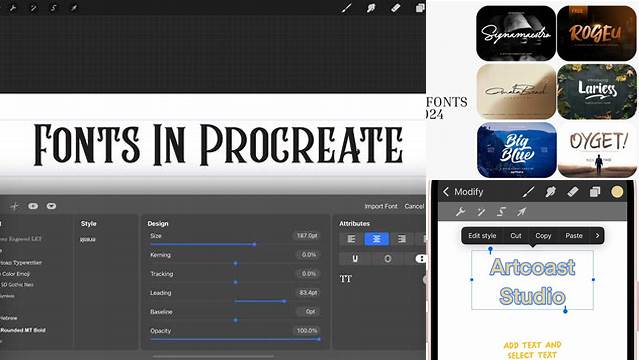
Download Procreate Fonts Free: The Ultimate Guide
Are you looking to download fonts for Procreate for free? You've come to the right place! Procreate, the amazing digital art app for iPad, is super popular among artists, illustrators, and designers. One of the coolest things about Procreate is how customizable it is, and fonts play a huge role in that. Choosing the right font can totally transform your artwork, giving it a unique vibe and making your message pop. But let's be real, finding high-quality fonts for free can sometimes feel like searching for a needle in a haystack. Don't worry, guys! This article will show you where to find awesome fonts without spending a dime and how to easily install them in Procreate. We'll also give you some tips on using fonts effectively in your projects to make your artwork stand out.
Why Fonts Matter in Procreate
Before diving into the where and how, let's talk about why fonts are so important in Procreate. Fonts are more than just letters; they're a way to express your style and enhance the overall feel of your artwork. Imagine creating a stunning poster but using a font that doesn't match the theme – it just wouldn't work, right? The right font can make your text readable, attractive, and engaging. Whether you're working on illustrations, comics, logos, or typography-based art, fonts help communicate your message effectively and add that extra oomph to your designs. Different fonts evoke different emotions and associations. A bold, sans-serif font might convey modernity and strength, while a delicate, script font can bring a touch of elegance and sophistication. Think about it: the font you choose for a children's book will be very different from the one you use for a corporate brochure. So, understanding the impact of fonts and carefully selecting the ones that align with your artistic vision is essential for creating compelling visuals in Procreate. Plus, having a diverse collection of fonts at your fingertips opens up a world of creative possibilities and allows you to experiment with different styles and effects. With the right fonts, you can take your Procreate projects to the next level and create truly eye-catching designs.
Finding Free Fonts for Procreate
Tips for Using Fonts Effectively in Procreate
Okay, you've got your fonts installed and ready to go. But how do you use them effectively in your Procreate projects? Here are some tips to help you make the most of your fonts:
- Choose the Right Font for Your Project: This seems obvious, but it's super important! Think about the overall style and message of your artwork and choose a font that complements it. A playful, whimsical font might be perfect for a children's illustration, but it wouldn't work for a serious, corporate presentation.
So, there you have it! A comprehensive guide to downloading and using free fonts in Procreate. With a little bit of searching and experimenting, you can find tons of awesome fonts to elevate your artwork and express your unique style. Remember to always download fonts from reputable sources, read the license agreements carefully, and choose fonts that complement your projects. With the right fonts, you can take your Procreate creations to the next level and create truly eye-catching designs. Now go forth and create something amazing!